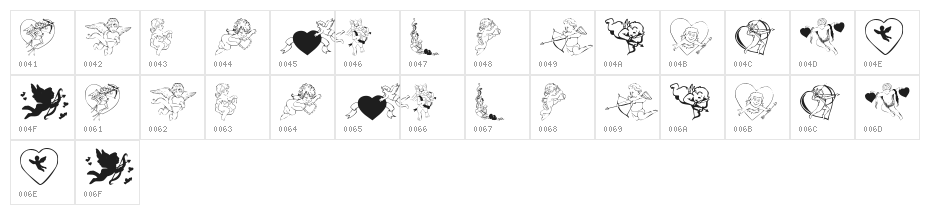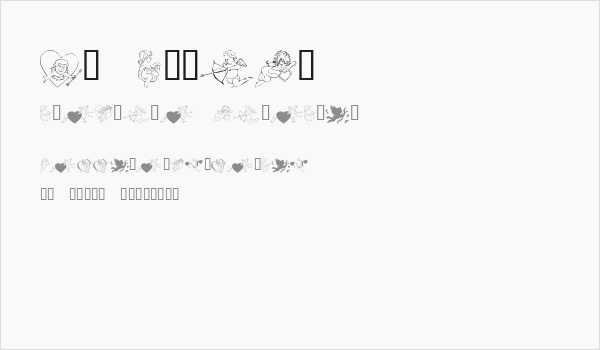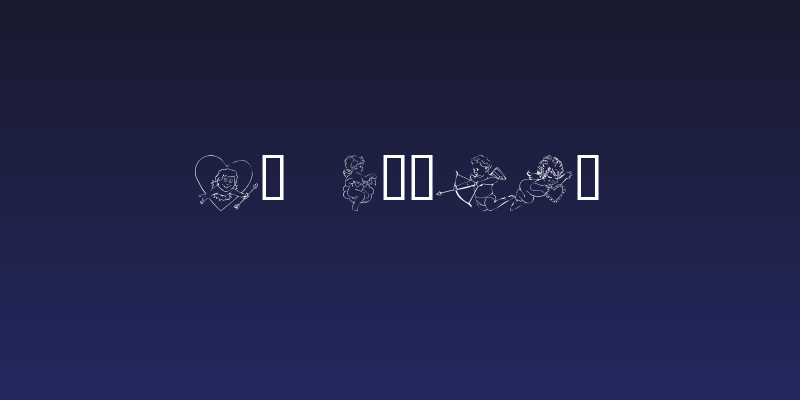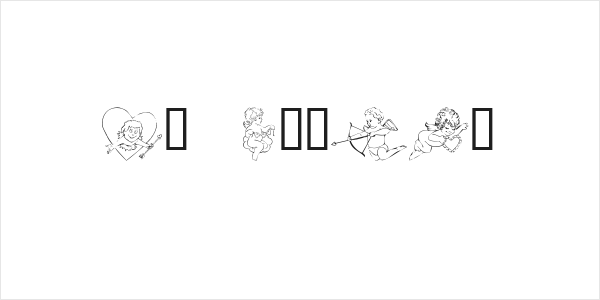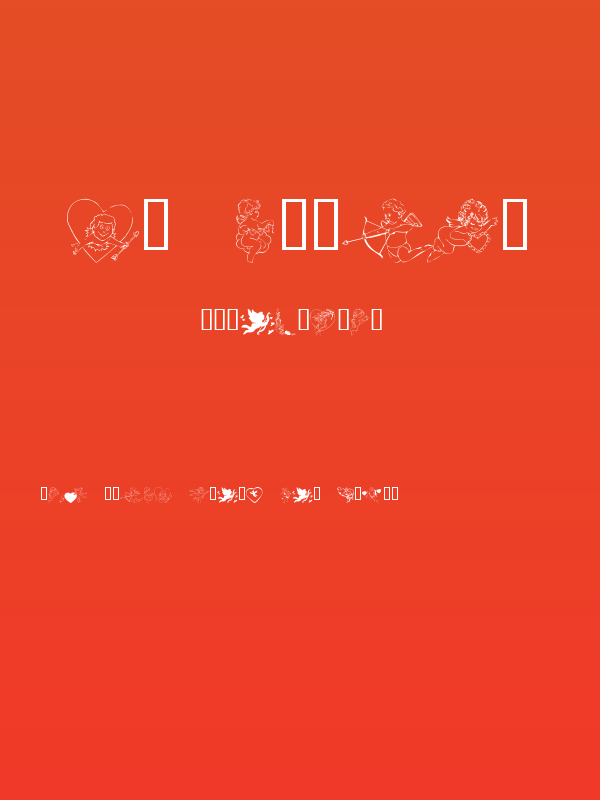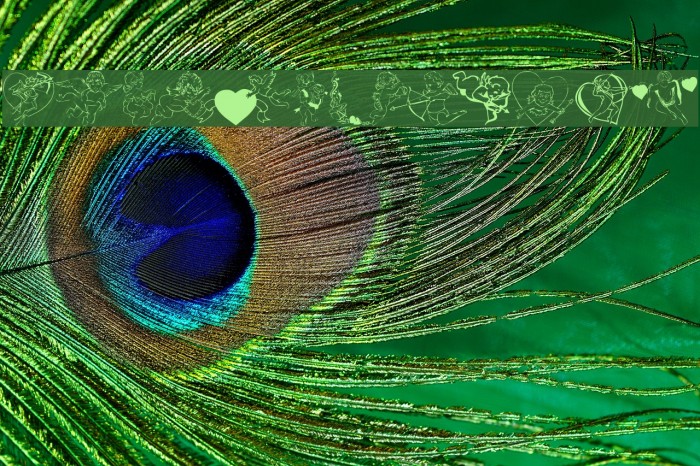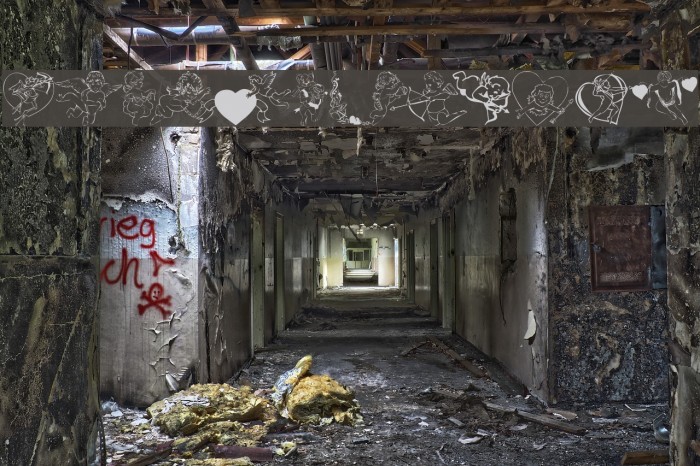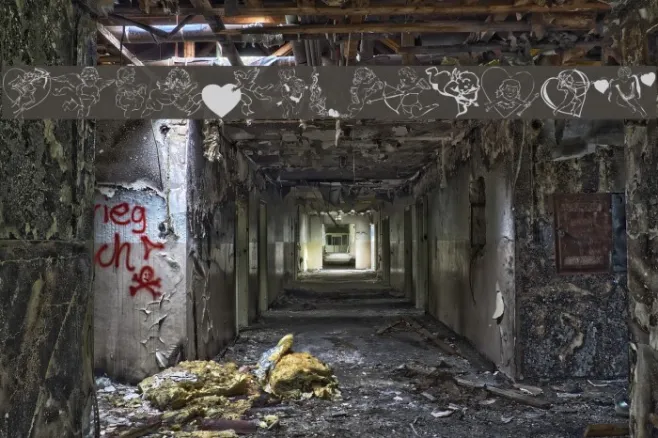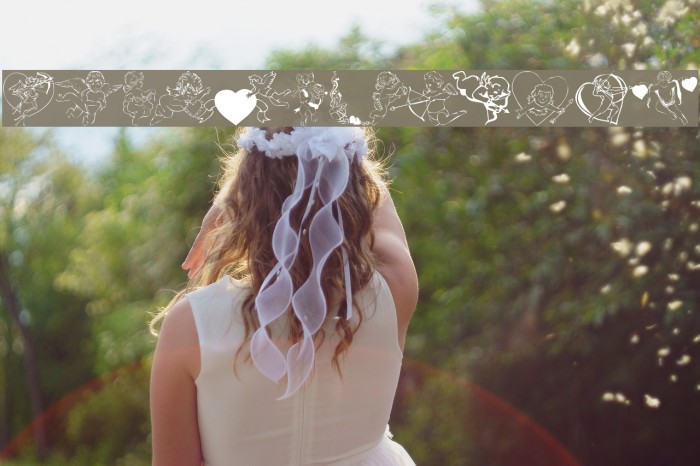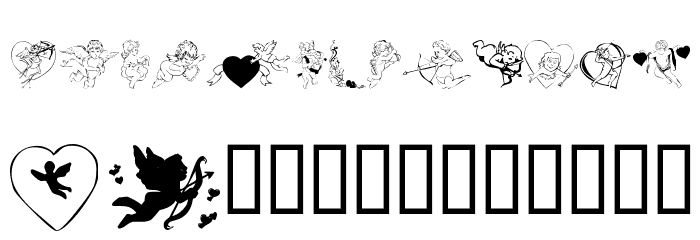
KR Cupids Font
KR Cupids Description
This is not a traditional font but rather a collection of decorative cupid-themed illustrations. The design features various cherubic figures and heart motifs, each with unique poses and expressions. These elements are intricately detailed, showcasing playful and romantic themes. The illustrations are ideal for embellishing romantic or festive projects, adding a whimsical and charming touch. The style is distinctly decorative, focusing on visual storytelling through its playful and intricate designs.
| Use Case | Decorative embellishments |
| Proposed Projects | Ideal for Valentine's Day cards, wedding invitations, romantic event decorations, and festive crafts. |